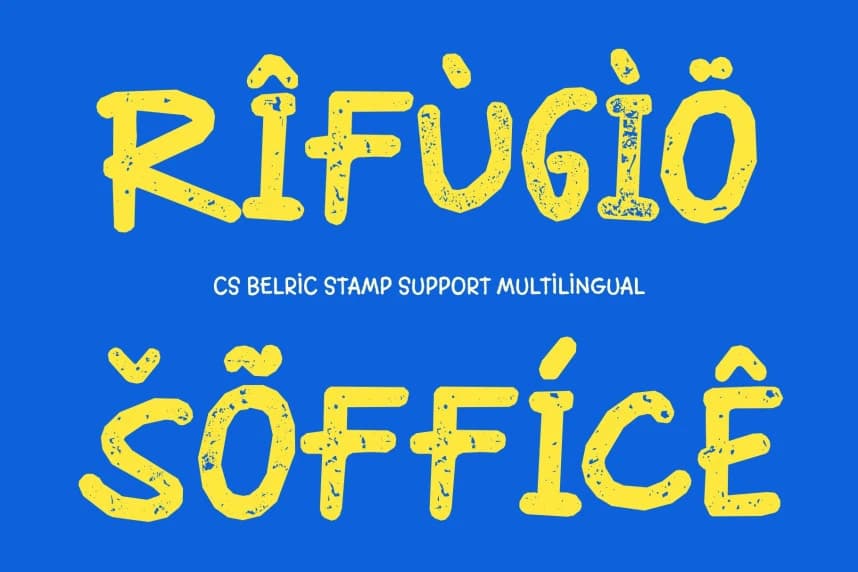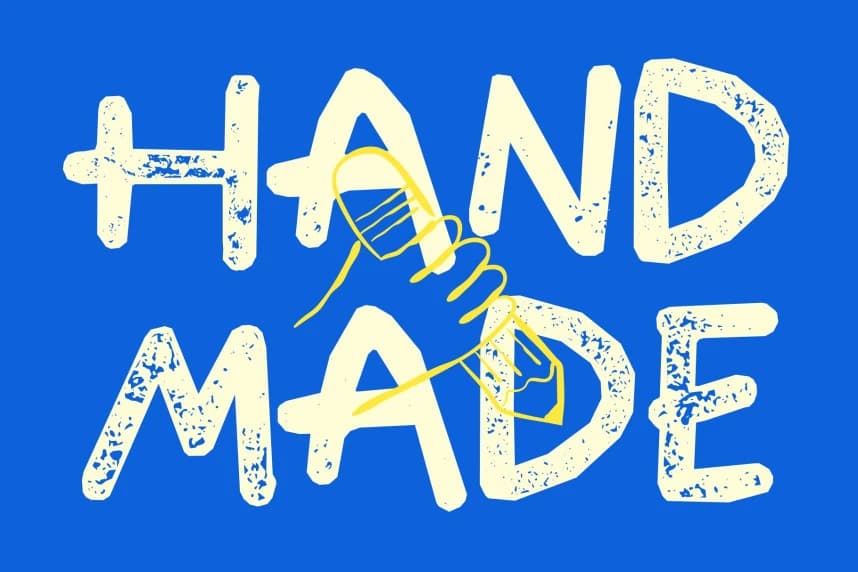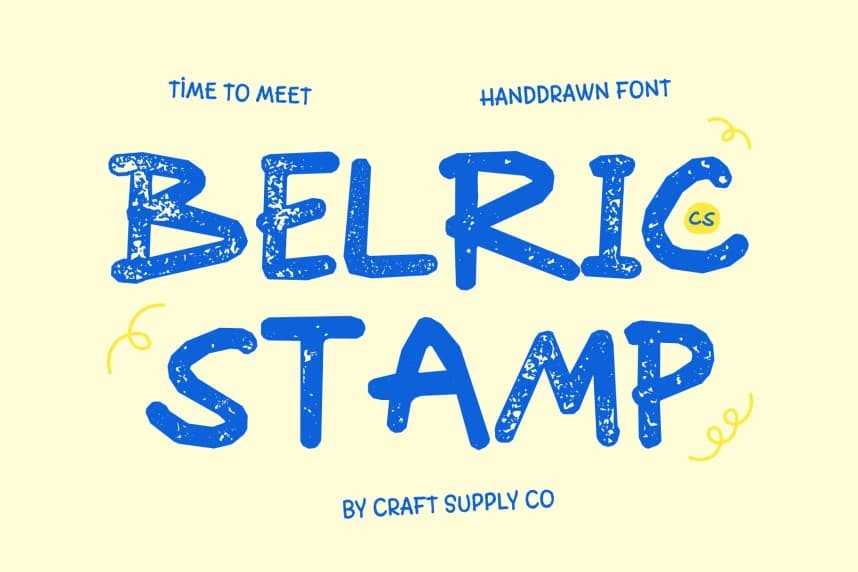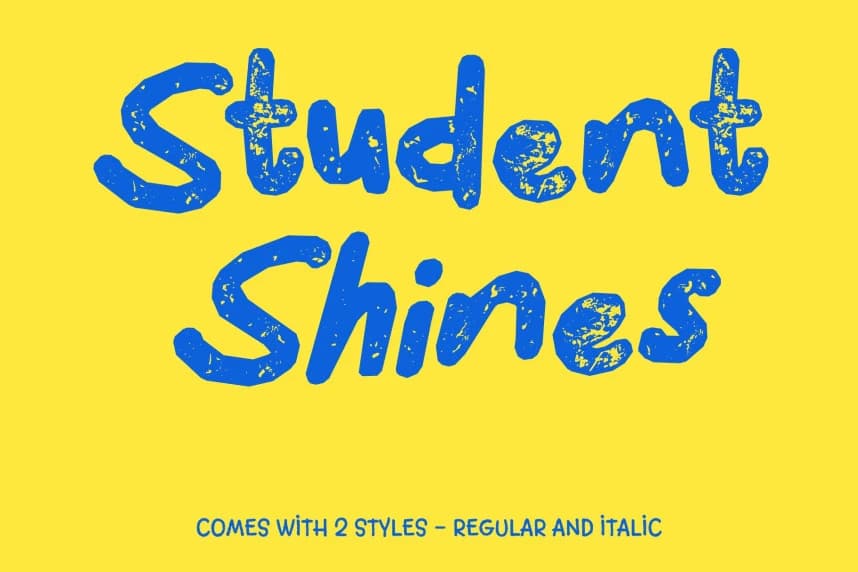
CS Belric Stamp Font – Playful Spirit with Endless Charm Cheerful Handwriting with a Stamped Finish. This is a cute handwritten font that radiates joy and friendliness, now enhanced with a subtle stamped texture.